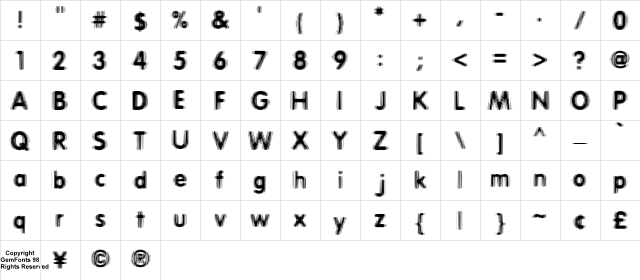
Erthqake Regular
Design Context for Erthqake Typeface
Erthqake is a composed and adaptable typeface that performs quietly and consistently across a wide range of design contexts.